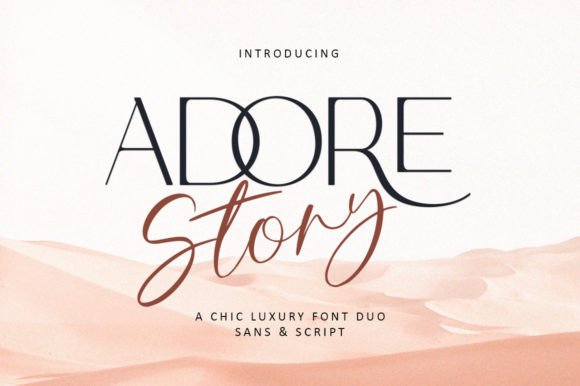
Adore Story Font: Elevate Your Designs with Elegance and Sophistication
In the world of typography, font combinations play a crucial role in creating visually stunning designs. One such exquisite pairing is the Adore Story Font, which brings together a chic sans-serif and an elegant script to produce a sophisticated and modern look. This versatile font duo is perfect for designers looking to add a touch of luxury and refinement to their projects, whether it’s for logos, packaging, social media graphics, or any other creative endeavor.
What Makes Adore Story Font Stand Out?
Adore Story Font is not just any ordinary font combination. Its unique blend of a sleek sans-serif and a graceful script font makes it a standout in the world of typography. Here are some key features that make Adore Story Font a must-have for designers:
- Chic Sans-Serif and Elegant Script Combination: The pairing of a modern sans-serif with an elegant script font creates a beautiful contrast that can elevate any design.
- Sophisticated and Modern Look: The combination provides a sophisticated and modern aesthetic, making it perfect for designs that require a touch of elegance.
- Versatility: Adore Story Font can be used for a wide range of design projects, from logos and packaging to social media graphics and more.
The Power of Font Combinations in Design
Font combinations are a powerful tool in graphic design. They can make or break the aesthetic appeal of a project. A well-chosen font pairing can enhance readability, convey the right mood, and add a professional touch to designs. Adore Story Font, with its chic and elegant combination, is designed to help designers achieve these goals with ease.
The key to a successful font combination is balance. The fonts should complement each other without competing for attention. Adore Story Font achieves this balance beautifully, offering a harmonious blend that works well in various design contexts.
Applications of Adore Story Font
Adore Story Font’s versatility makes it suitable for a wide array of design applications. Here are some of the ways designers can use this exquisite font combination:
- Logo Design: Create memorable and elegant logos that stand out.
- Packaging Design: Add a touch of sophistication to product packaging.
- Social Media Graphics: Elevate social media posts and stories with a refined aesthetic.
- Advertising: Use in advertisements to convey luxury and modernity.
- Web Design: Enhance website typography for a more engaging user experience.
Why Choose Adore Story Font?
With numerous font combinations available, why should designers choose Adore Story Font? Here are some compelling reasons:
- Unique Aesthetic: Offers a unique and distinctive look that can set designs apart.
- High Readability: Ensures that messages are conveyed clearly and effectively.
- Support for Various Languages: Many font combinations in this category support multiple languages, making them versatile for global projects.
Tips for Using Adore Story Font Effectively
To make the most out of Adore Story Font, consider the following tips:
- Balance Fonts: Use the sans-serif for body text and the script for headings or highlights to create a balanced look.
- Play with Sizes: Experiment with different font sizes to emphasize certain elements over others.
- Utilize Swashes: Take advantage of the swashes available in the script font to add decorative touches.
- Consider Color: Choose colors that complement the elegance of the font combination, such as neutral tones or rich jewel tones.
Adore Story Font is a powerful tool for designers looking to infuse their projects with elegance and sophistication. Its unique combination of a chic sans-serif and an elegant script font, along with its PUA encoding for easy access to glyphs and swashes, makes it an excellent choice for a wide range of design applications. Whether you’re working on a logo, packaging, social media graphics, or any other project, Adore Story Font can help you achieve a modern and refined look that stands out.
Embrace the beauty of typography with Adore Story Font and elevate your designs to new heights of sophistication and style.